The Wonder Woman Logo History, Colors, Font, And Meaning
In this tapestry of color and contention, the narrative woven speaks volumes of our society’s values versus the visual representations we endorse.The Carolina Hurricanes Logo History, Colors, Font, And Meaning. 13 September 2023.A square frame has been part of the comic and fictional Logo of Wonder Woman.The Black Widow Logo History, Colors, Font, and Meaning. The Audi logo primarily uses black and silver colors. 24 August 2023.The Wonder Woman logo has transcended comic books, becoming an iconic symbol of female empowerment and a rallying point for gender equality and justice.Occasional Red: Passion and Energy.The Converse Logo History, Colors, Font, and Meaning. One of history’s most recognizable .The Sleek Silver.The Wonder Woman logo’s influence on pop culture is beyond epic. This emblem of cool—affixed to the ankle of a Chuck Taylor or emblazoned across gear—transcends mere branding.
Wonder Woman Logo and History: The Emblem of Empowerment
In short, Milton Glaser was the first to create the WW symbol, which made its debut in 1982.For starters, the main figure behind the creation of Wonder Woman was an American psychologist named William Moulton Marston, who managed to capture the interest of . 29 February 2024. While the design for Wonder Woman has changed significantly since the original .
Wonder Woman logo and the history behind the movie
It signifies an enduring legacy and reliability, inspiring trust among its patrons. Imagine the pulse of technology at your fingertips, the thrum of innovation coursing through your veins.Wonder Woman, made her first official appearance on All-Star Comics and would eventually made her solo debut on Sensation Comics #1.
The original Wonder Woman logo first appeared in 1941.The Vans Logo History, Colors, Font, and Meaning.Wonder Woman font is a bold and stylish font inspired by the DC Comic superhero, Wonder Woman. Yet, grace incarnate lies not merely in the purr of its engine nor the sumptuous caress of its leather—cast your gaze upon the Bentley logo. This emblem isn’t merely a design; it’s a beacon that unites a community .The Wonder Woman logo represents a woman with extraordinary abilities, ready to amaze the world.
Evolution of the Wonder Woman Logo & Its Historical Significance
Wonder Woman Logo History
Wonder Woman Logo History And Symbol Evolution
Wonder Woman Logo Design
The Bentley Logo History, Colors, Font, and Meaning. Red screams of Italian passion, the racing legacy, and the vibrancy of their performance motorcycles.The Adobe Logo History, Colors, Font, and Meaning. A tapestry of intrigue weaves itself into the very fabric of the Black Widow logo, a symbol that has evolved far beyond its inked origins. We’ve prepared an overview of the major changes to explain how . Picture this: A solitary icon that instantly conjures the realm of creativity and innovation; the Adobe logo stands as a beacon in the digital landscape. You know it instantly—the Batman logo. This stemmed from the identical and powerful graphic elements that coined its personality.
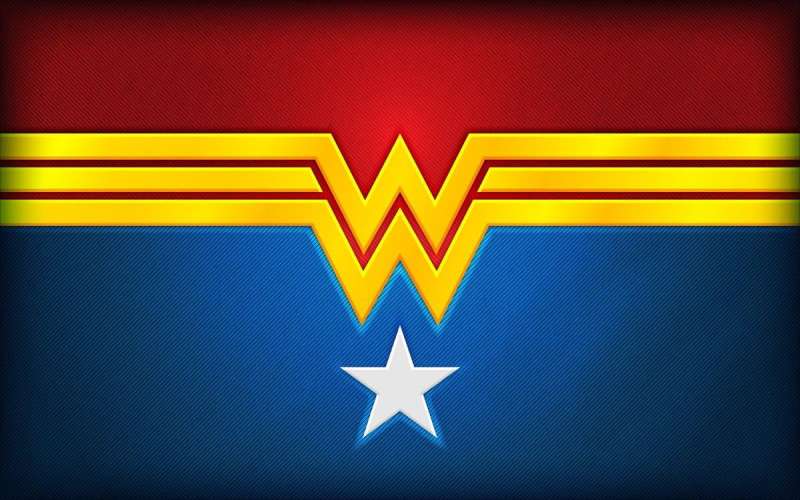
Welcome to the world where the Carolina Hurricanes logo reigns supreme, a symbol that transcends mere .The Microsoft Logo History, Colors, Font, and Meaning. This red ‘A’ isn’t just a letter—it’s a portal to a universe where pixels and vectors coalesce into masterpieces.Das Wonder Woman-Logo ist ein kultiges und unvergessliches Symbol für jeden Comic-Fan. Geschichte und Bedeutung. It’s not just a random choice. This color duality captures Ducati’s essence elegantly. Imagine the iconic Wolverine logo slashed across your mind’s canvas, claws poised in mid-action; it’s not just a design—it’s a legacy. DC Comics logos.Wonder Woman’s first film appearance in 2016 created a look that combined her Greek origins with her comic book history, and in the process, a logo that merged her original . Night cloaks Gotham, a beacon punctures the sky, a symbol ignites hope. It’s appeared in comics, movies, merchandise, and even graffiti. It’s a calm and soothing color, often associated with depth and stability.
The Washington Wizards Logo History, Colors, Font, and Meaning
The Cleveland Indians logo, a symbol etched into the hearts of many, stands at the crossroads of tradition and transformation. The first logo was designed as a golden . In the vibrant tapestry of professional basketball branding, the Charlotte Hornets logo stands as a beacon of creativity and regional pride. As designers, we strive to capture such legacies within our work, shaping symbols that resonate, elevate, and endure. It’s like a beacon, summoning forth images of stealth, elegance, and raw power.